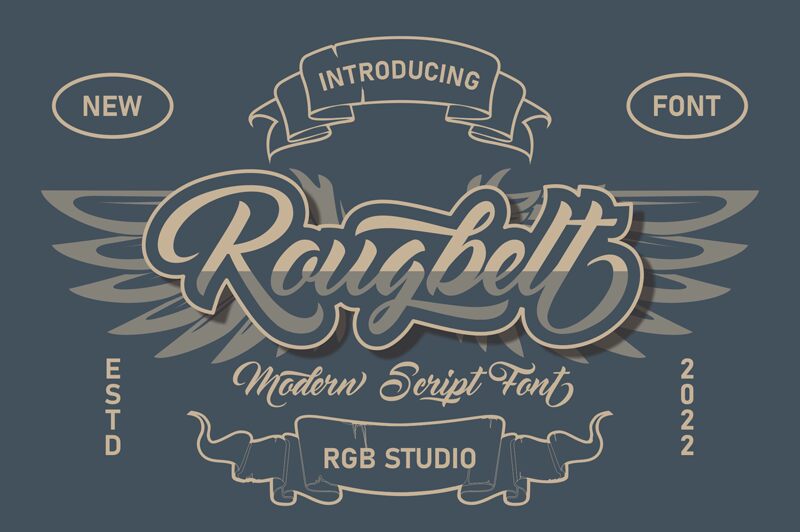
Rougbelt font designed by RGB Studio is a free calligraphy font with a flowing, elegant impression. Each of its characters presents a beautiful cursive flair while interconnecting in a stylish and smooth manner. The script font’s modern touch and expressive mood make it a perfect choice where style cannot be compromised.
Suitable for multiple branding projects, Rougbelt can be used in logo designing, brochures, stationary items, or invitation cards. Should you want to create an eye-catching advertising poster or product packaging; this tool offers the inspiration you needed the most. Presenting headlines in magazines and newspapers is also another sensational way this font can be applied!